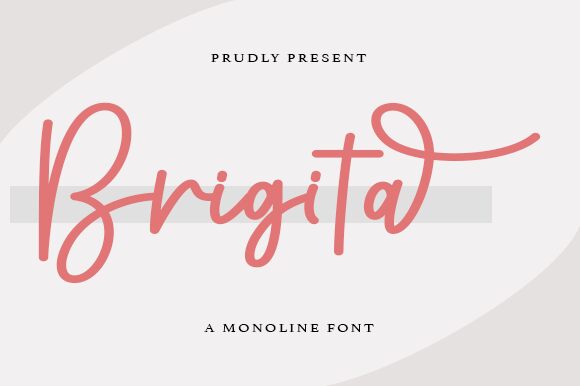
Brigita
Brigita, the semi-light monoline handwritten font designed by Wahyu Setiyawan, is a versatile typeface that adds a personal touch to any project. Its soft curves and delicate strokes make it perfect for wedding invitations, greeting cards, and feminine branding. The semi-light weight adds elegance to packaging design and editorial layouts, while the monoline style gives a modern feel to digital media. Use Brigita for social media graphics, website headers or any project that needs a touch of sophistication. Its design ensures readability on all devices and platforms. Bring your designs to life with Brigita!